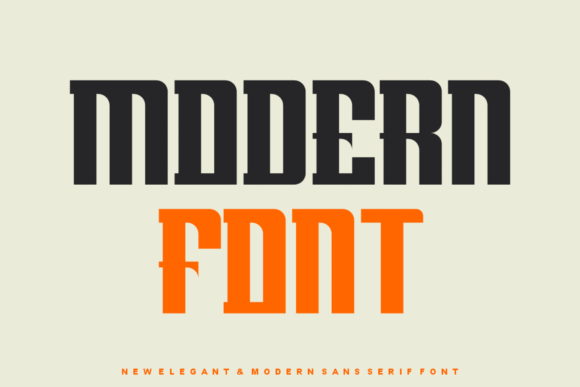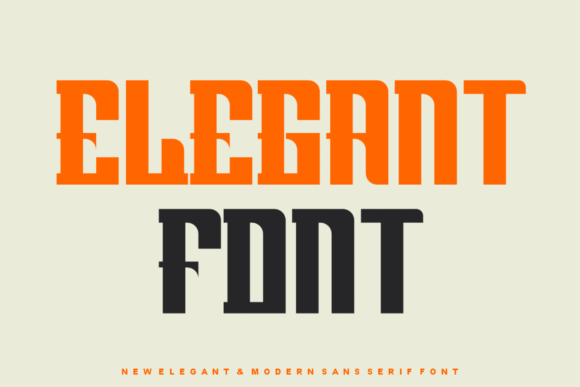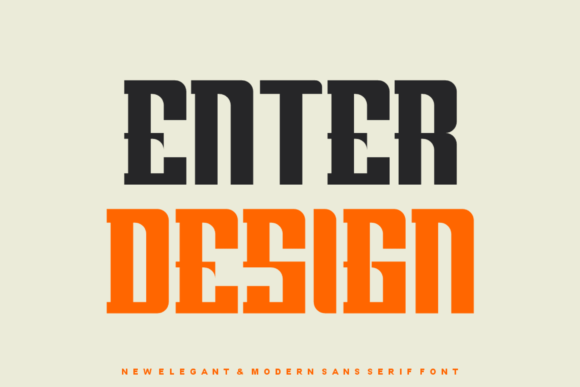
Kerogers Font: Free Download Now
Introduction to Kerogers Font
Kerogers is a bold and authentic slab serif font.
The font is suitable for any branding project like logo, t-shirt printing, e-sport, and many more It is sure to look outstanding in a wide range of contexts.
Kerogers Font offers exceptional quality and versatility, making it a valuable addition to your design toolkit. Whether you’re creating for personal projects or commercial use, Kerogers Font delivers professional results.